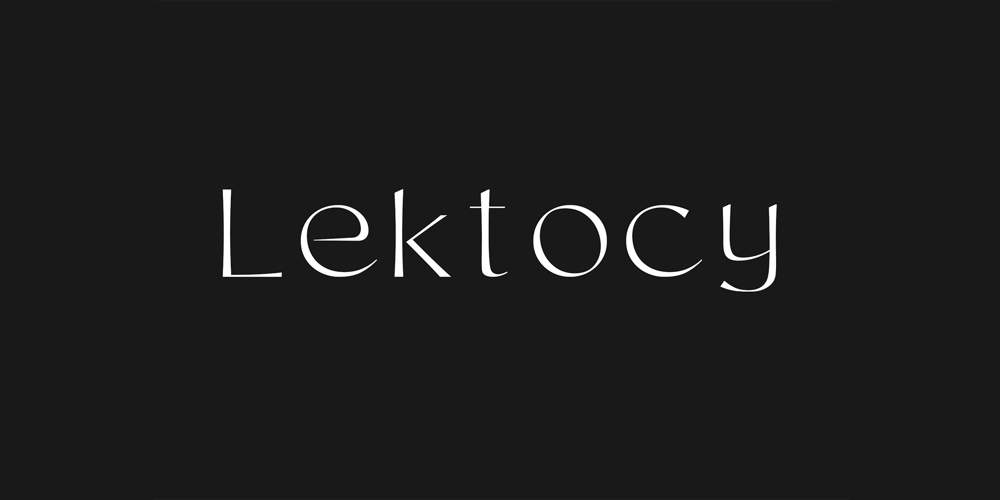
Lektocy Font Family was designed by Andreas Lang and published by Andreas Lang. Lektocy contains 1 styles and family package options. Are you looking for an elegant font for digital use? Then this trendy Lektocy font is just right for you! The modern font is perfect for graphic design, flyers, web design, book covers, greeting cards, print on demand, posters, banners or business cards and much more that can be filled with a luxurious text.